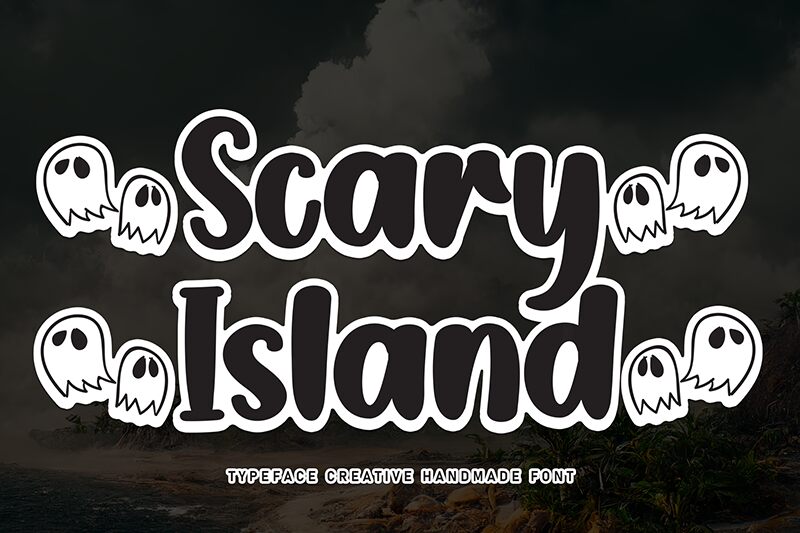
Scary Island
Scary Island font is a bold brush typeface brought to you by Scratchones. The playful scary style of this font makes it perfect for going on paper or in digital design. With each letter carefully drawn, you get an over-the-top artistic finish like that no other free calligraphy font can offer.
The download will do the job very well if you're working on your Halloween posters, logos, greeting cards, flyers, invitations and more! Other use cases include book covers (novel covers), social media posts, and even branding.